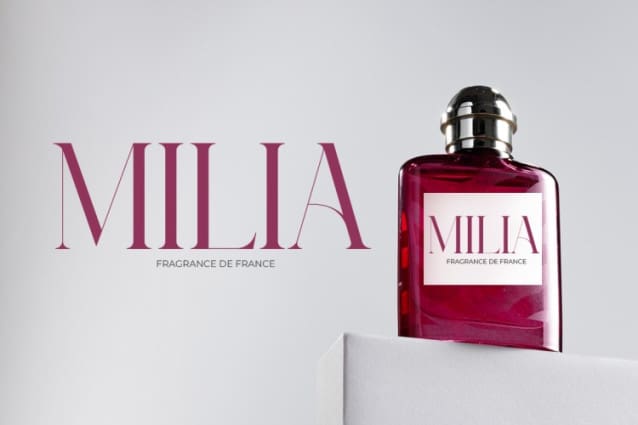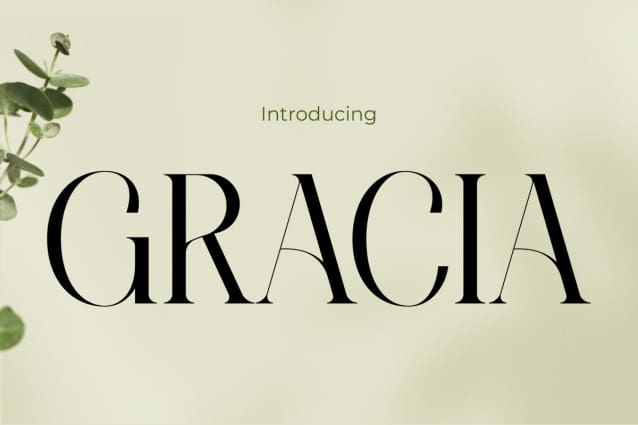
Gracia Font
Gracia Font is the perfect choice for those seeking an elegant, feminine, and fashionable style in their designs. With its gentle touch and graceful curves, this font blends sophistication with power to create a captivating and alluring look. Suitable for various design projects, from wedding invitations to fashion promotion materials, GraciaFont will provide a perfect touch that radiates unmatched charm and beauty.
With Gracia Font, elegance and beauty converge in a mesmerizing harmony. Each letter is meticulously designed to convey a strong and stylish feminine message. From magazine layouts to logo designs, this font adds an irreplaceable elegant touch, enriching visuals and capturing attention with its undeniable grandeur and grace. With GraciaFont, every design work will shine with unmatched uniqueness and allure.